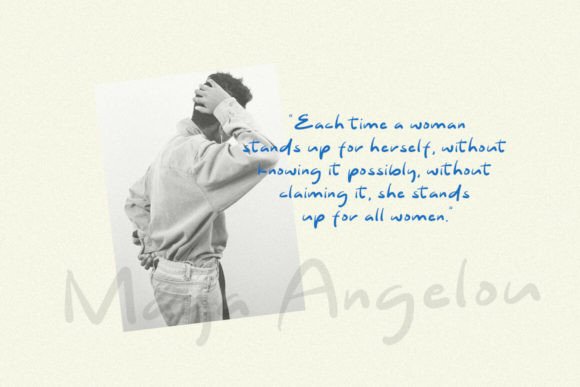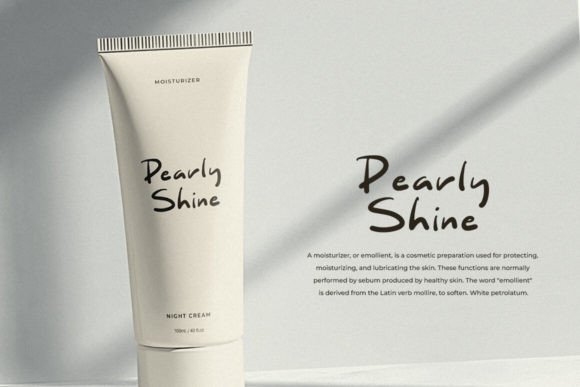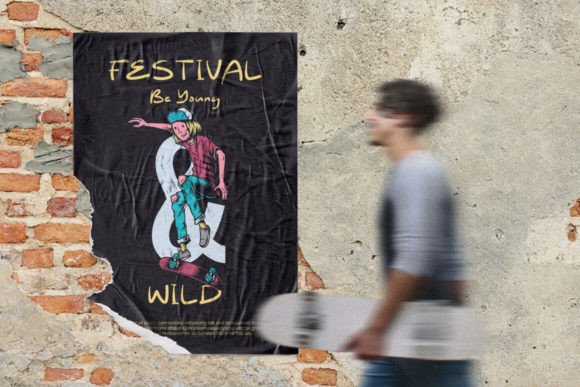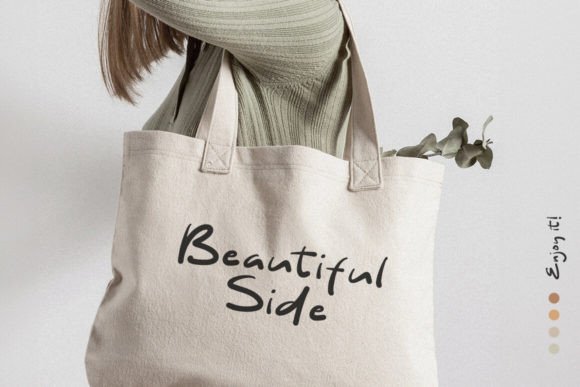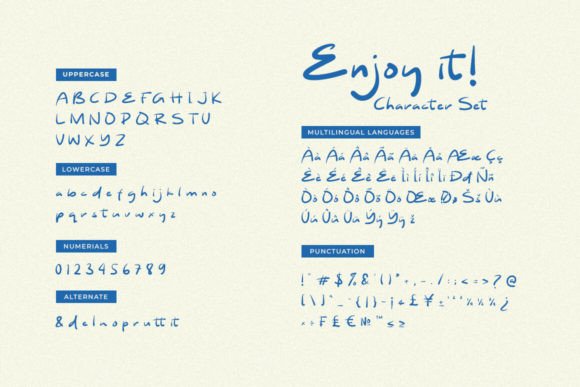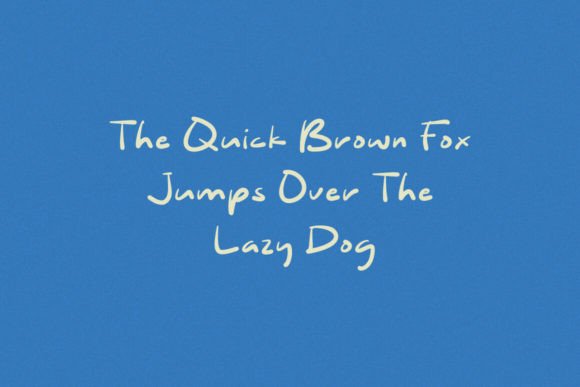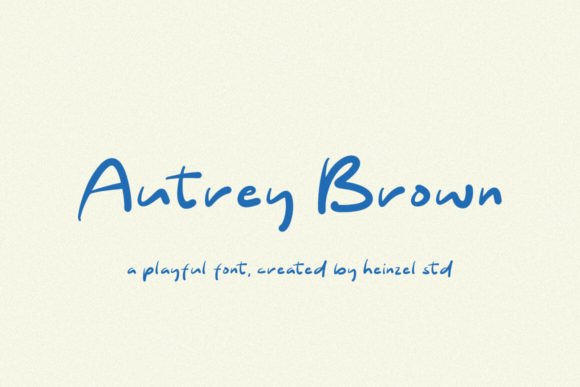
The Autrey Brown Font: A Playful and Natural Handwritten Delight
I’ll never forget the moment I stumbled upon the Autrey Brown font. I was working on a wedding invitation project for a client, and I was struggling to find the perfect font that captured the playful and romantic vibe they wanted. As I scrolled through my font library, Autrey Brown caught my eye, and I knew I had found the one. In this article, I’ll share my experience with this beautiful font, its features, and how to make the most of it in your design projects.
- ✨ Playful and natural feel: Autrey Brown has a unique, handwritten charm that adds a personal touch to any design project.
- ✅ Versatile: This font is perfect for creating logos, watermarks, branding, wedding invitations, quotes, taglines, and more.
- ✅ Easy to read: Despite its playful nature, Autrey Brown remains clear and legible, making it suitable for body text and headlines.
- ⚠️ Limited use in formal contexts: Due to its playful nature, Autrey Brown might not be the best fit for formal or corporate designs.
- ⚠️ Some letters may require manual kerning: As with any handwritten font, you might need to adjust the kerning for certain letter combinations to achieve optimal results.
The Designer Inspiration Behind Autrey Brown
Autrey Brown was designed with the intention of creating a font that captures the essence of handwriting. The designer aimed to create a font that feels natural, playful, and approachable. The result is a beautiful, unique font that adds a personal touch to any design project.
A: Autrey Brown is a versatile font that can be used in a variety of design projects, such as logos, branding, wedding invitations, and more. Experiment with different sizes, colors, and arrangements to find the perfect fit for your project.